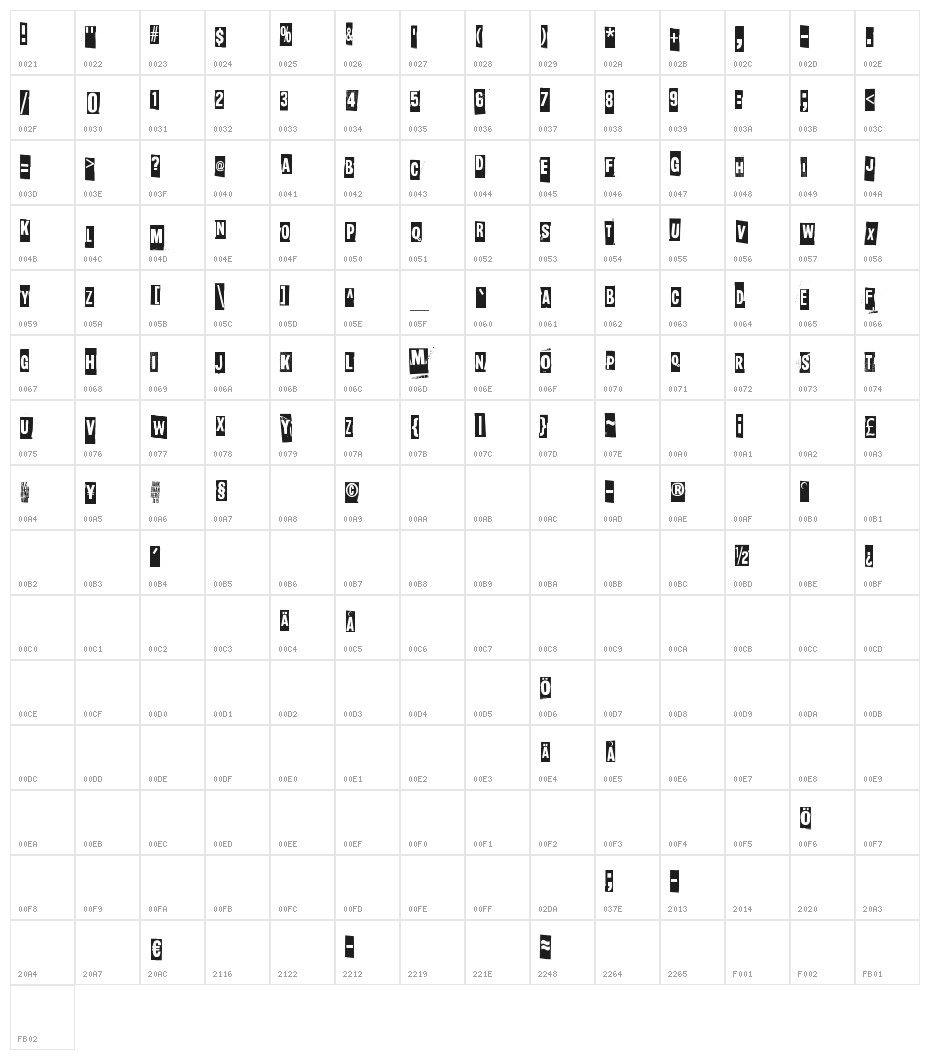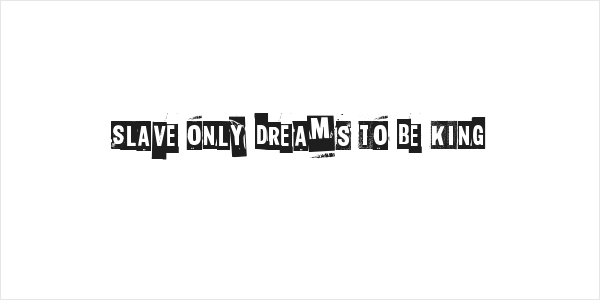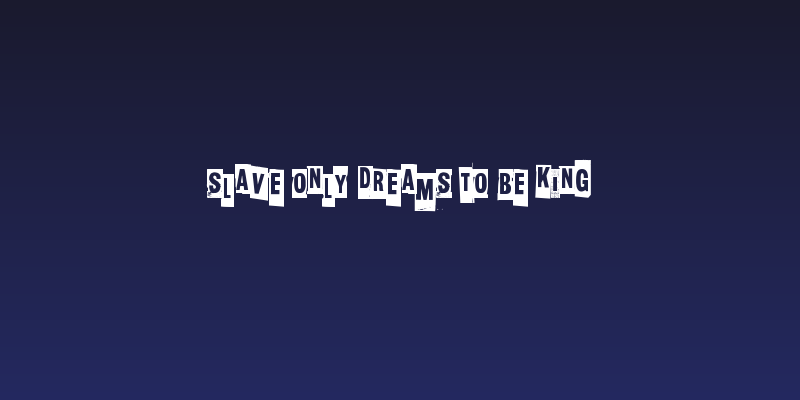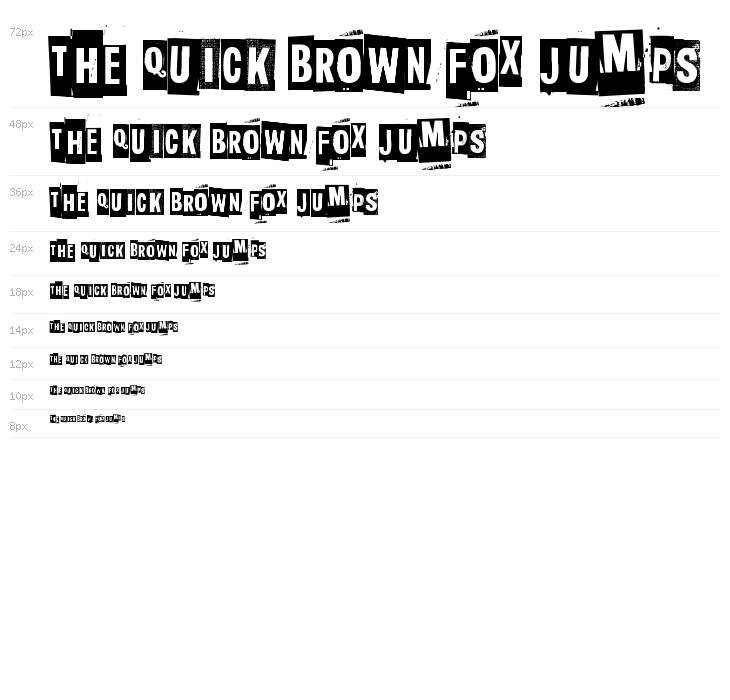
Slave only dreams to be king Font
Slave only dreams to be king Description
This font exhibits a bold and edgy style, reminiscent of ransom notes with its cut-out letter appearance. Each character is uniquely designed with varying backgrounds and textures, giving it a distressed and grungy look. The letters are uppercase and lowercase, with numerals and a range of special characters. The uneven edges and inconsistent alignment add to its chaotic and rebellious aesthetic, making it stand out in any design. The font's high contrast between the black backgrounds and white letters enhances readability while maintaining its unconventional style.
| Overall Style | Grunge, Rebellious |
| Use Case | Headlines, Posters, Branding |
| Proposed Projects | Ideal for album covers, posters, edgy branding, or any project needing a rebellious, standout typeface. |